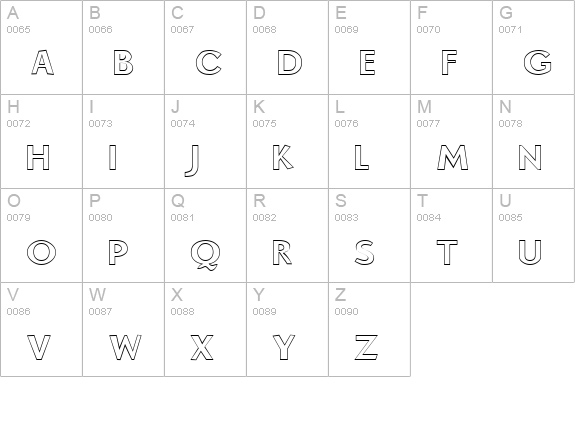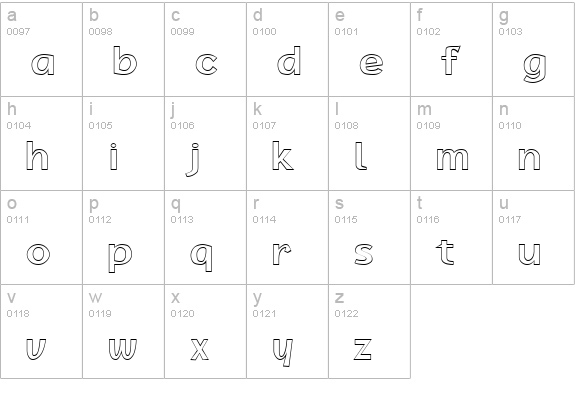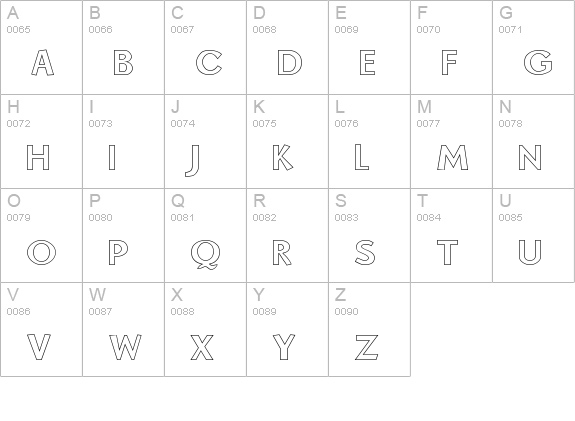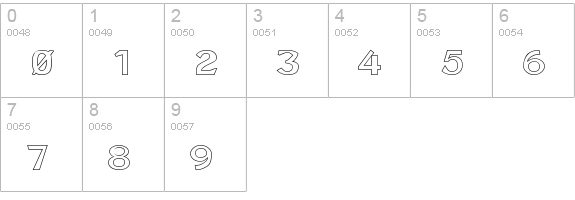
LimousineOpen Font Details
LimousineOpen font is a sleek and elegant typeface that exudes sophistication and luxury. Its refined letterforms and clean lines make it perfect for adding a touch of class to any design project. Whether you are creating invitations, branding materials, or advertisements, LimousineOpen font will elevate your work with its timeless appeal. What sets LimousineOpen font apart is that it is not only stylish and versatile but also free to download. That's right, you can access this high-quality font at no cost on FontsMarket.com. So why settle for ordinary when you can enhance your designs with the luxurious charm of LimousineOpen font? Download it today and let your creativity shine!